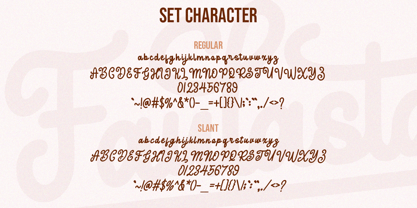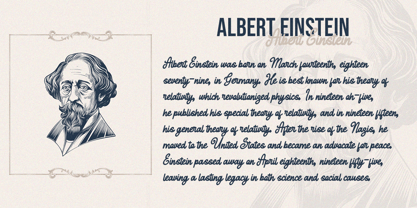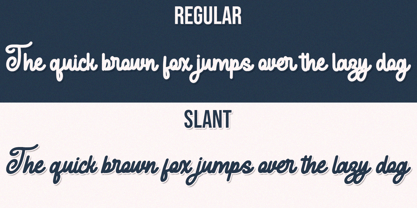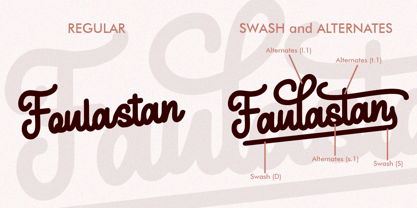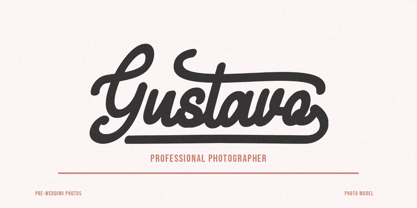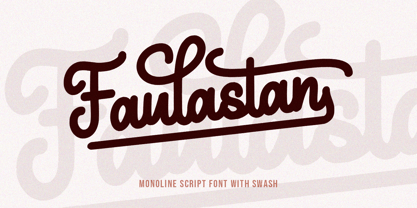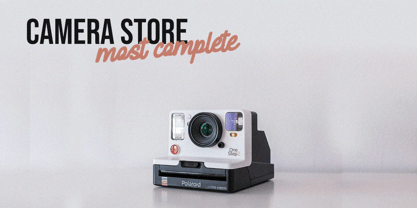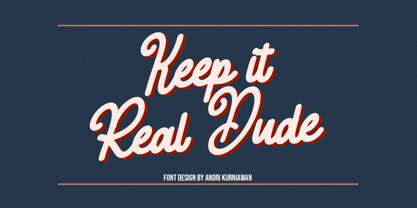
Faulastan
The Faulastan Font Family was designed by Andri Kurniawan and published by Struggle Studio. Faulastan contains 4 styles and family package options. More about this family
Faulastan is a monoline script font elegant that combines elegance with a contemporary flair. With its smooth, flowing lines and clean, consistent stroke width, this font evokes a sense of simplicity and sophistication. Its cursive-style letters feature gentle curves and graceful connections, making it ideal for creating stylish logos, branding, invitations, and other creative projects. Faulastan's seamless flow and balanced design brings a modern touch to traditional script fonts, offering a timeless yet trendy look that works well in both digital and print formats.